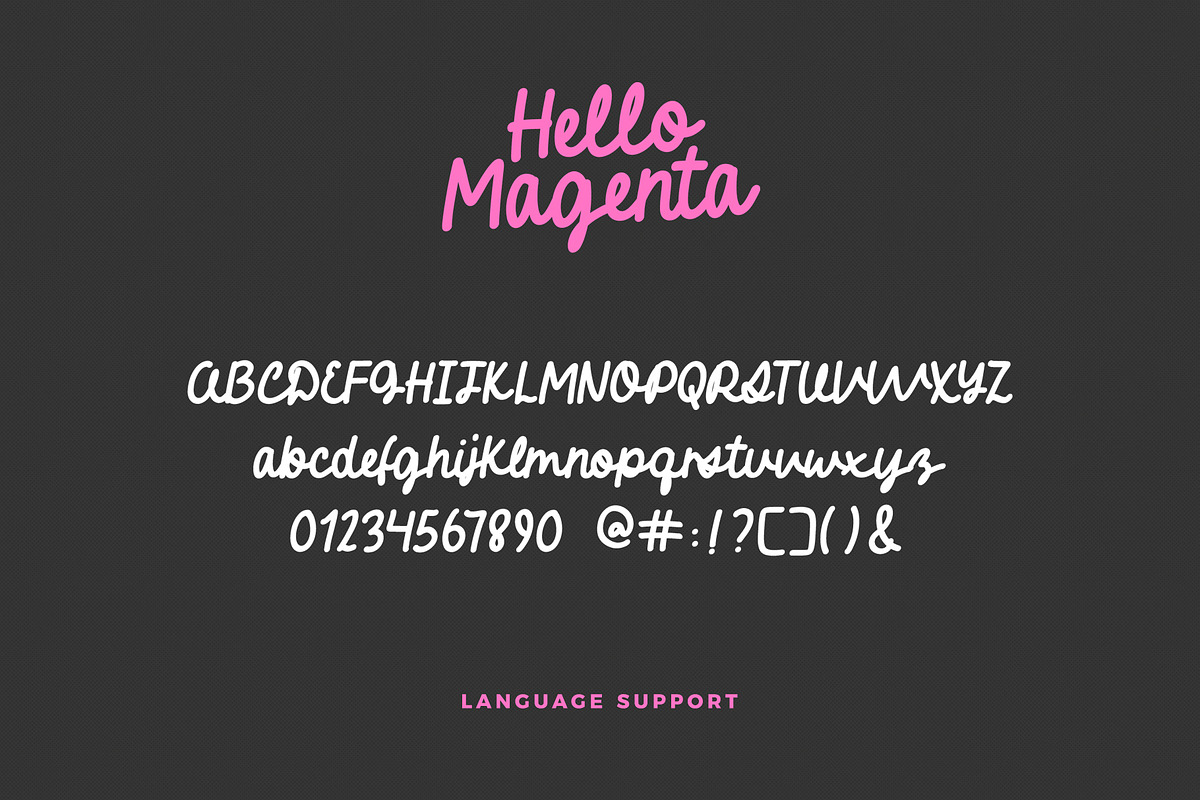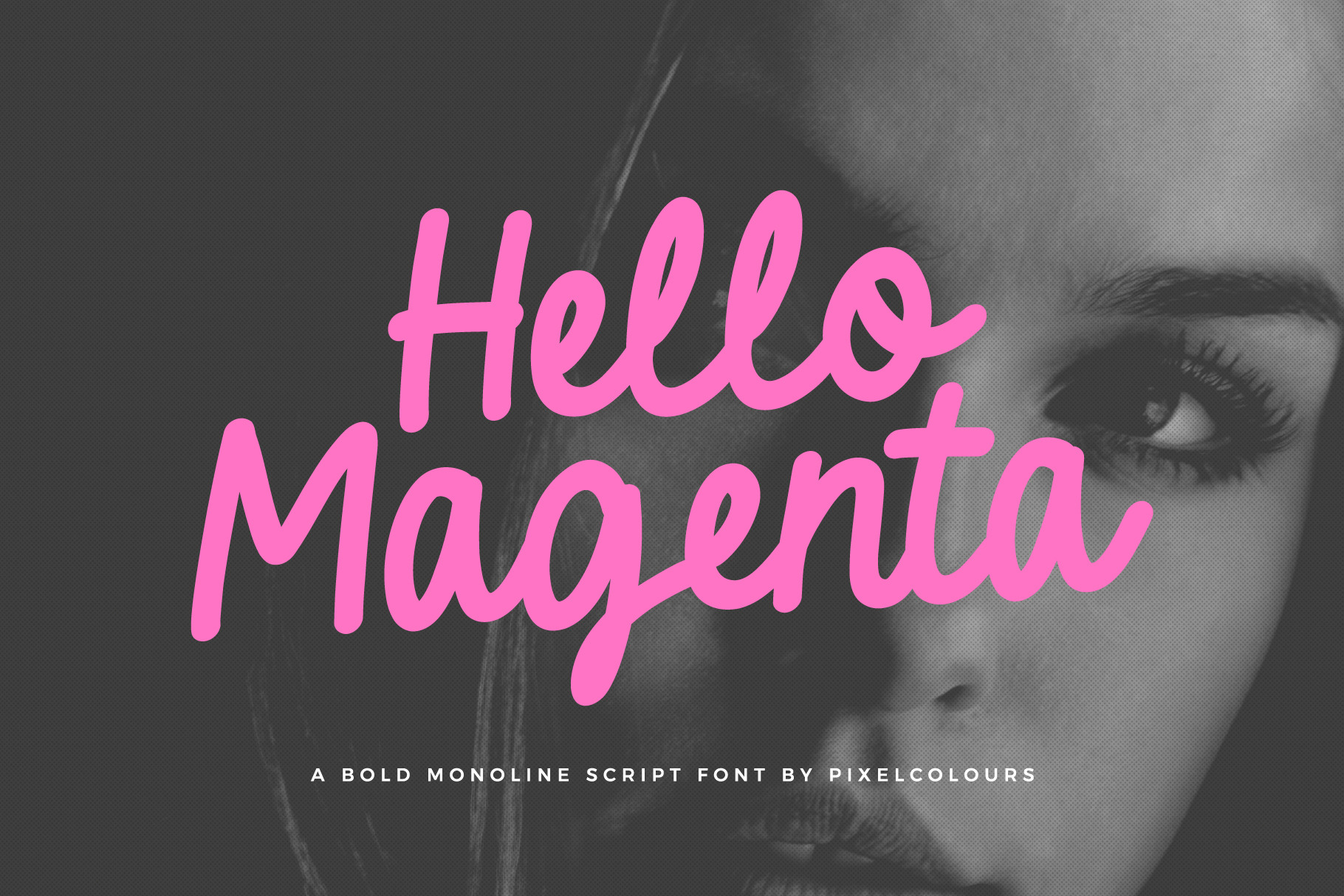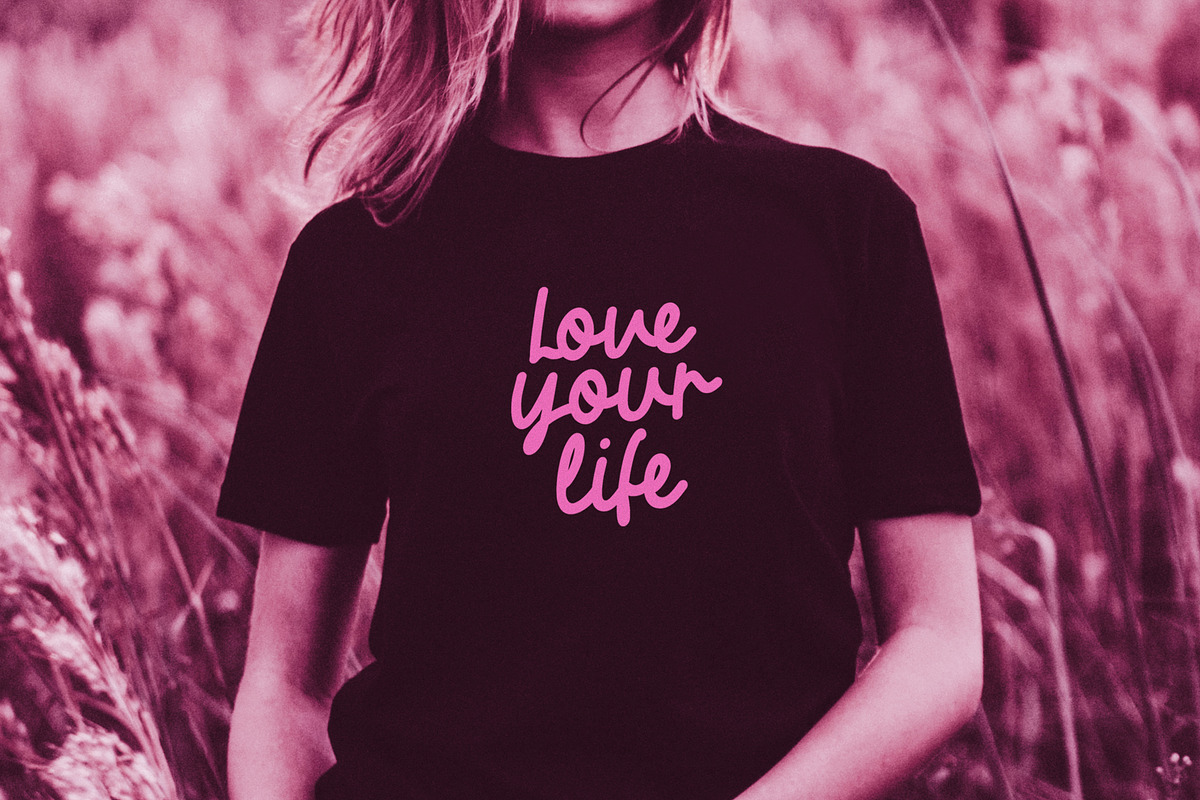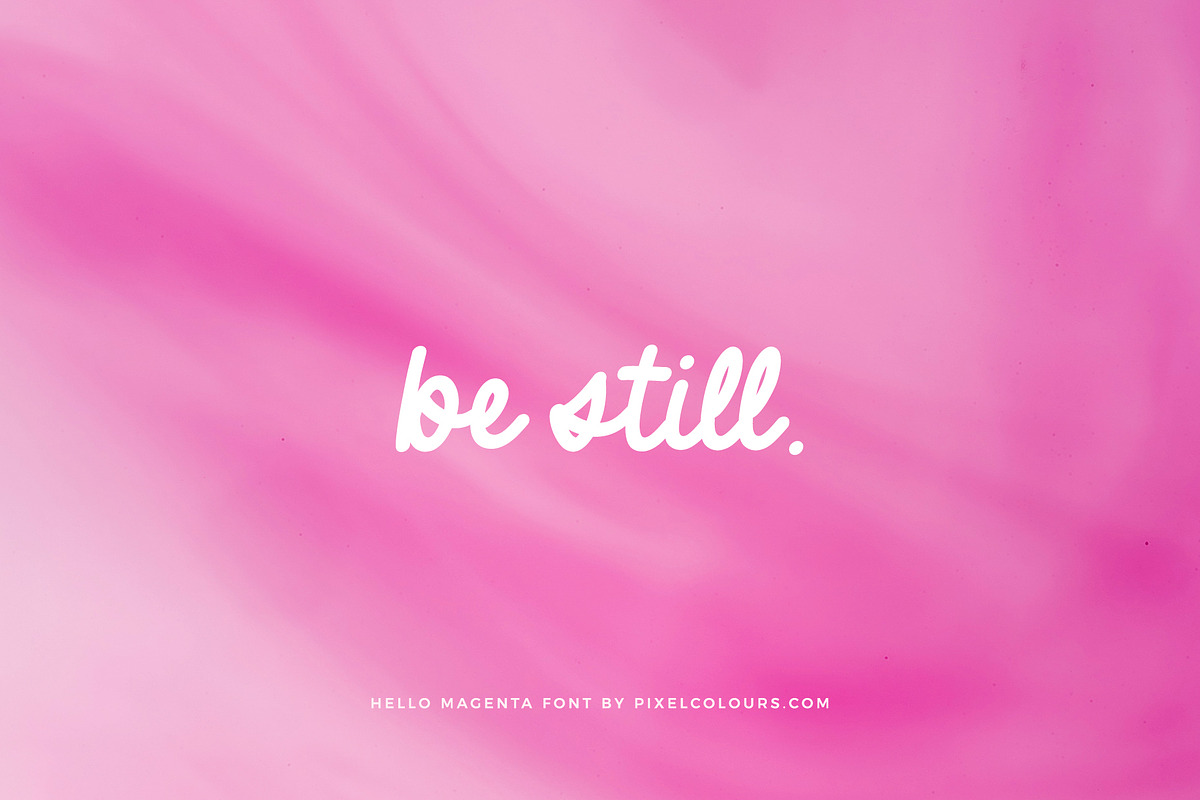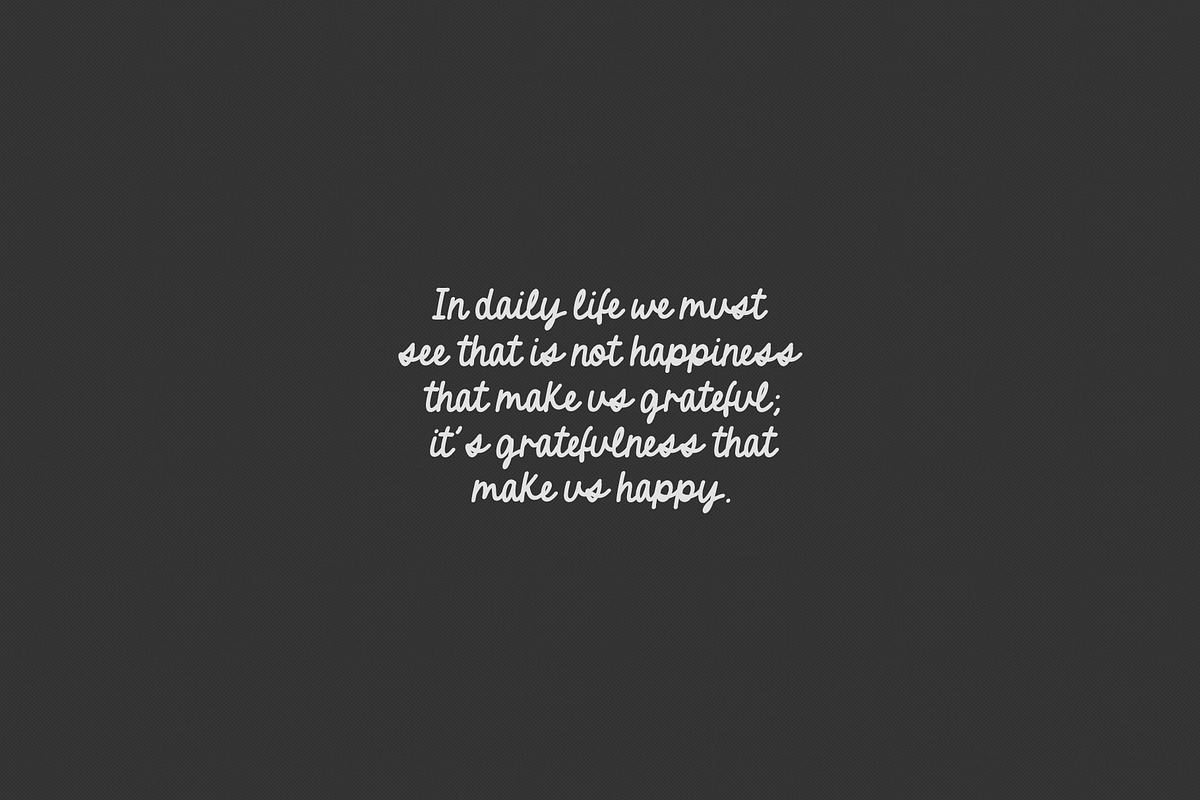
Handwriting Bold Script Font Magenta
Hello Magenta Font is a handwritten script font that is modern, bold and fun. Great for quotes, social media posts or any project that has a happy mood.
- Uppercase, lowercase, numbers and punctiation